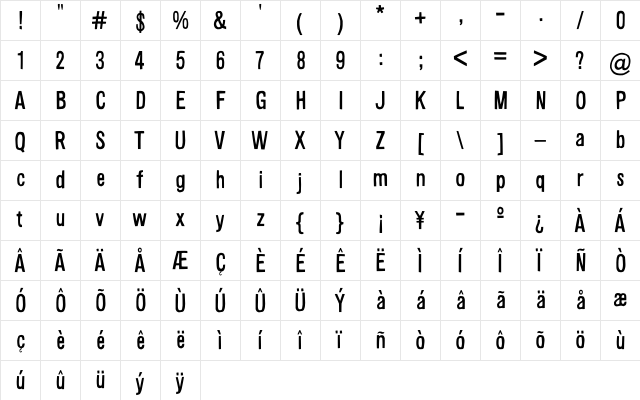
Alsina Ultrajada
Design Context for Alsina Typeface
Alsina takes a measured approach to typography — its balanced proportions and neutral character make it a reliable workhorse for both digital and print work.